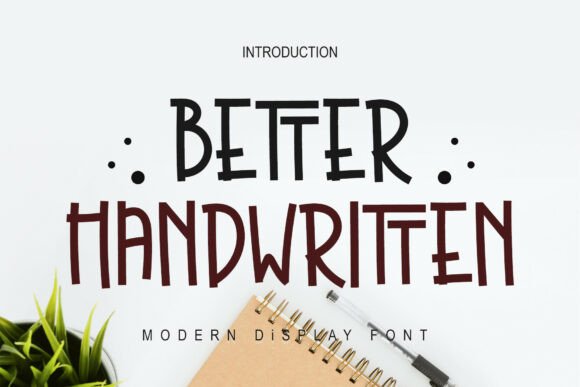
The Better Handwritten Font: A Game-Changer for Designers and Crafters
I still remember the design project that led me to discover the Better Handwritten font. I was working on a branding campaign for a local artisan market, and I needed a font that would capture the essence of handmade, street-style charm. After hours of scouring font libraries and testing various typefaces, I stumbled upon Better Handwritten – and it was love at first sight! 💕
This modern display typeface has a unique architectural vibe, blending straight lines with organic curves to create a legible, high-impact font family. In this article, I’ll share my experience with Better Handwritten, its features, and how to make the most of it in your designs.
• ✅ Legibility: Better Handwritten is surprisingly easy to read, even at smaller sizes, making it perfect for editorial layouts and instructional content.
• ✅ Versatility: This font works beautifully across various applications, from book covers to urban-themed branding, and even DIY magazines.
• ✅ Unique Style: The mix of straight lines and organic curves gives Better Handwritten a distinctive, hand-built feel that’s hard to find in other fonts.
• ✅ OpenType Features: The font comes with a range of OpenType features, including stylistic alternates and glyphs, which allow for a high degree of customization.
While Better Handwritten is an excellent font, there are a few things to keep in mind:
• 🤔 Limited use in formal contexts: Due to its street-style inspiration, Better Handwritten might not be the best fit for very formal or corporate projects.
• 🤔 Pairing with other fonts: While Better Handwritten is a strong font, it can be challenging to pair with other typefaces. Experiment with different combinations to find the perfect match.
The Designer Inspiration Behind Better Handwritten
The story behind Better Handwritten’s creation is fascinating. According to the font’s designers, they were inspired by the raw energy of street-style handwriting and the urban landscape. They aimed to create a font that would capture the essence of handmade, authentic design while still being legible and versatile.
Q: What makes Better Handwritten unique?
A: Better Handwritten’s unique blend of straight lines and organic curves sets it apart from other handwritten fonts. This distinctive style gives it a strong, architectural feel that’s both modern and authentic.
Q: Is Better Handwritten suitable for digital use?
A: Absolutely! Better Handwritten is designed to work well in both print and digital environments. Its legibility and versatility make it an excellent choice for digital projects, such as websites, social media graphics, and email marketing campaigns.
Q: Can I use Better Handwritten in combination with other fonts?
A: Yes, Better Handwritten can be paired with other fonts to create visually interesting combinations. Experiment with different font pairings to find the perfect match for your project.